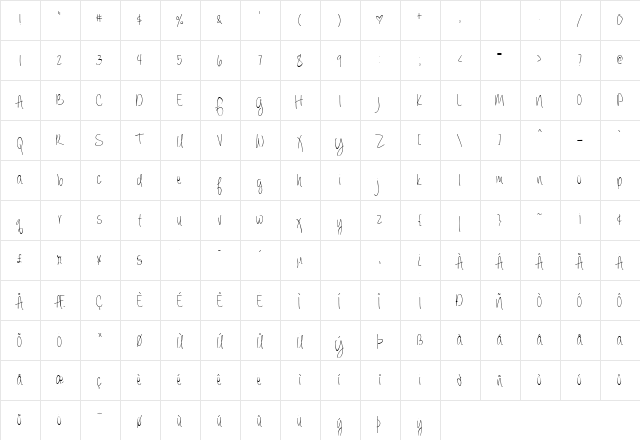
Always Forever Regular
| Foundry | Brittney Murphy |
| Designer | Brittney Murphy |
Design Context for Always Forever Typeface
Always Forever offers clean, dependable letterforms without strong stylistic allegiance, making it a practical choice for designers who need flexibility.